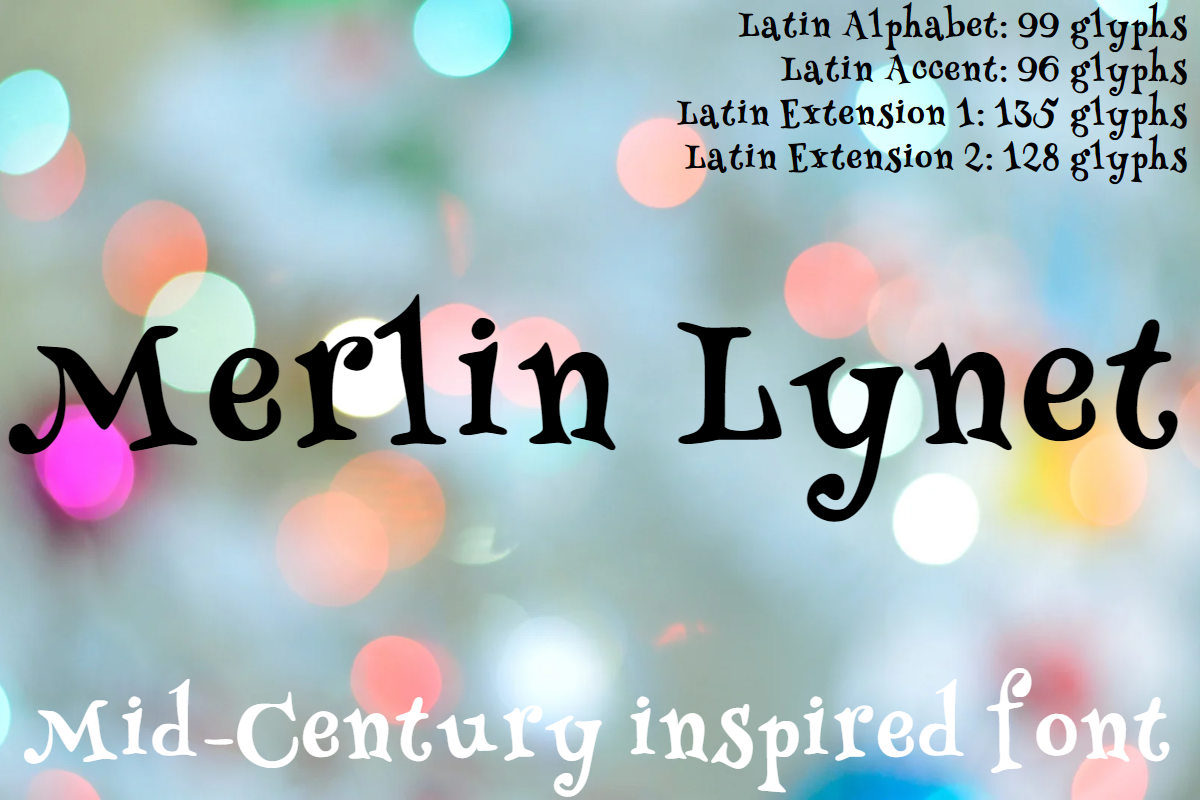
Merlin Lynet font
Merlin Lynet is a mid-century-inspired font. I've been wanting to design one like this since I discovered I could create my own fonts. I'm super happy with how it turned out and hope you'll love it as much as I do.
330 glyphs in total: Latin alphabet, Latin accent, Latin extension 1 and Latin extension 2.